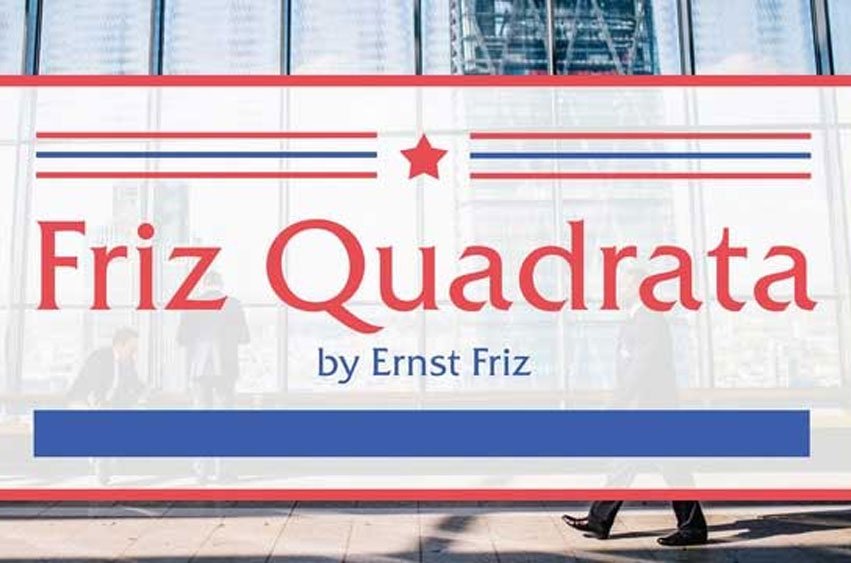
Friz Quadrata Font is the work of a number of collaborators. The first weight was created by Swiss designer Ernst Friz and made its first international appearance with the design release of Visual Graphics Corporations.
ITC then arranged with VGC so that Victor Caruso could add a bold weight to the original. Finally, in 1992, French designer Thierry Puyfoulhoux designed italic weights for both the original and bold weights.